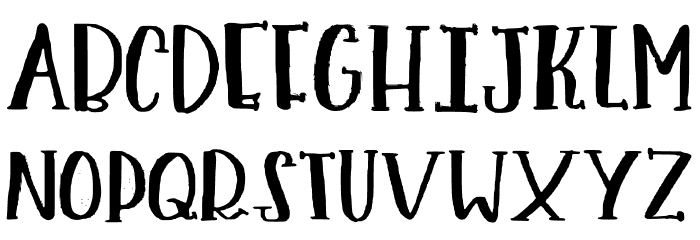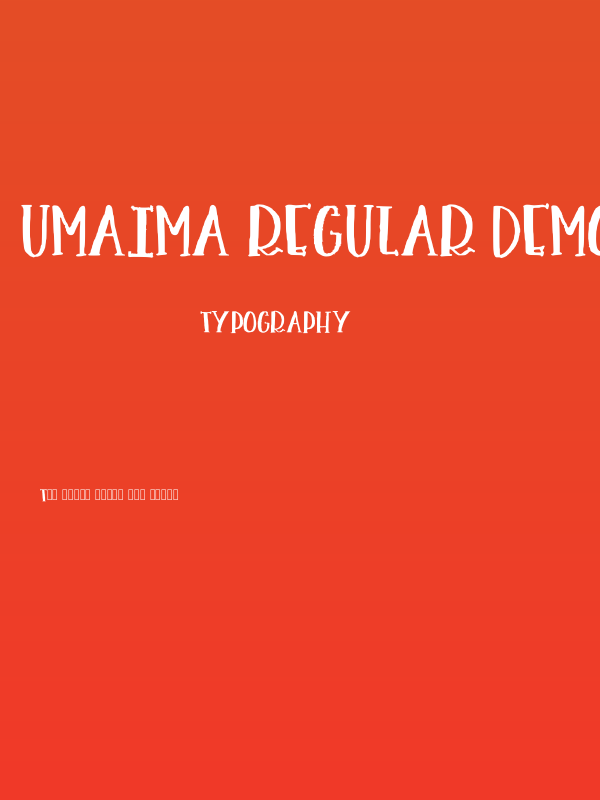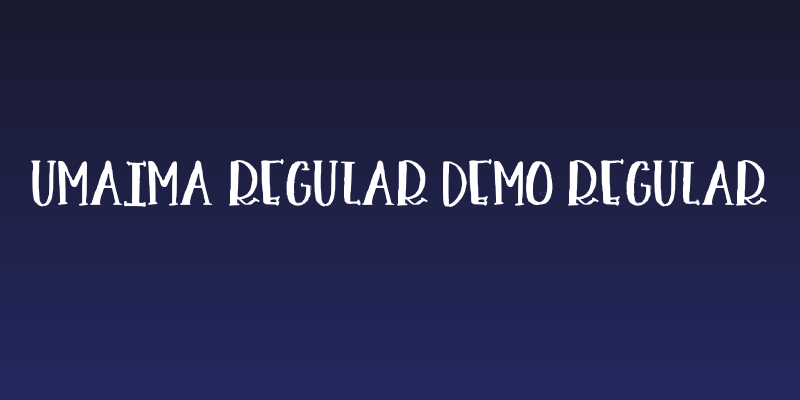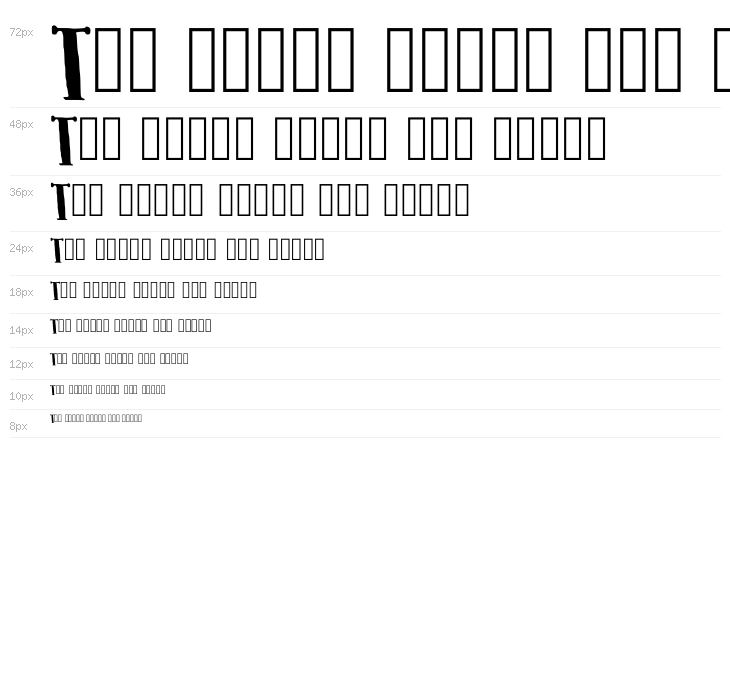
Umaima Regular Demo Regular Font
Umaima Regular Demo Regular Description
This font features a playful and artistic design with a hand-drawn aesthetic. The characters are bold and slightly irregular, giving them a whimsical and informal appearance. The strokes vary in thickness, adding to the handcrafted feel. The uppercase letters are tall and narrow, while the lowercase letters maintain a consistent style with a slightly condensed form. The overall look is both unique and approachable, making it suitable for creative projects that require a personal touch.
Proposed ProjectsIdeal for children's books, greeting cards, posters, and creative branding projects.